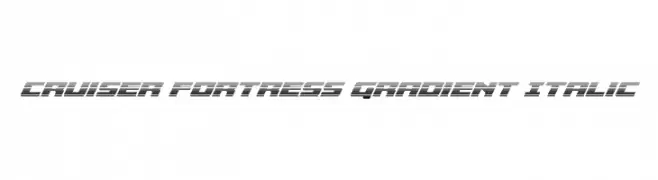
A playful, dice-inspired font with bold, blocky characters and geometric symbols.
A mystical, rune-like decorative font with flowing, dynamic lines.
A modern, arrow-themed font with bold, geometric characters.
A bold, decorative font with arrow motifs and geometric elements.
A bold, dripping font with a dramatic and intense appearance.
A decorative font with bold letters in circles, each with an upward arrow.
A futuristic, gradient italic font with dynamic horizontal lines.
Bold and oblique font with a dynamic, modern style.